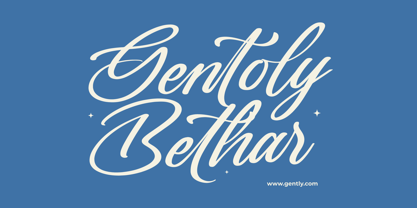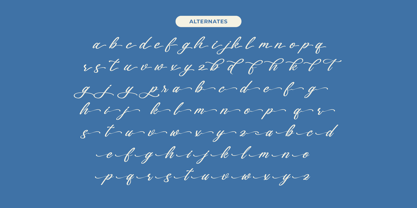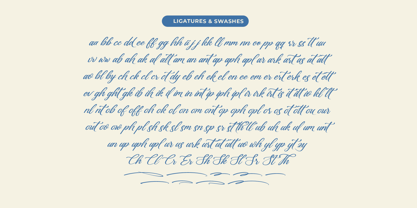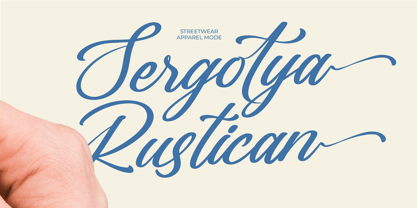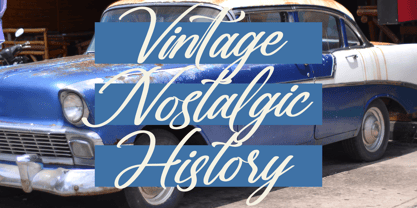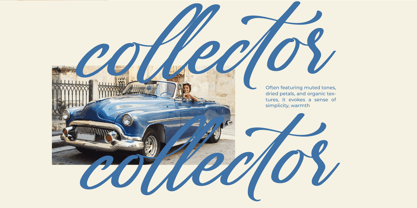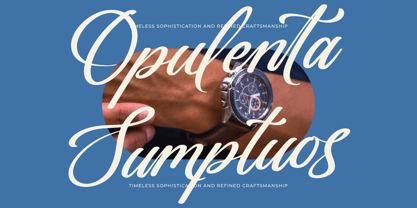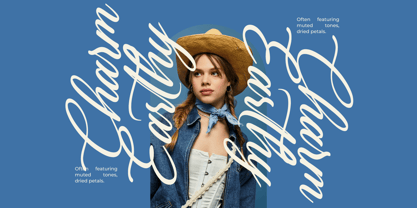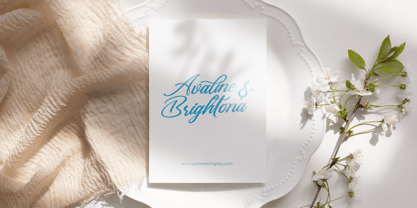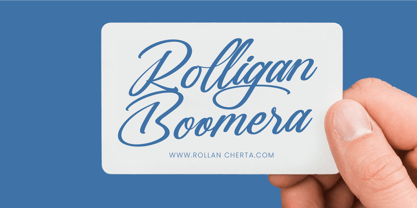
Gartenya Calligraph
by Letterena Studios
The Gartenya Calligraph Font Family was designed by Heru Utama Putra and published by Letterena Studios. Gartenya Calligraph contains 2 styles and family package options.
Gartenya Calligraph - Modern Calligraphy Font , from Letterena, is a Luxury Script font, suitable for any projects such as: logos, branding projects, homeware designs, product packaging, mugs, quotes, posters, shopping bags, t-shirts, book covers, name card, invitation cards, greeting cards, label, photography, watermark, special events, and all your other luxury and beautiful projects that need a Luxury Script taste.